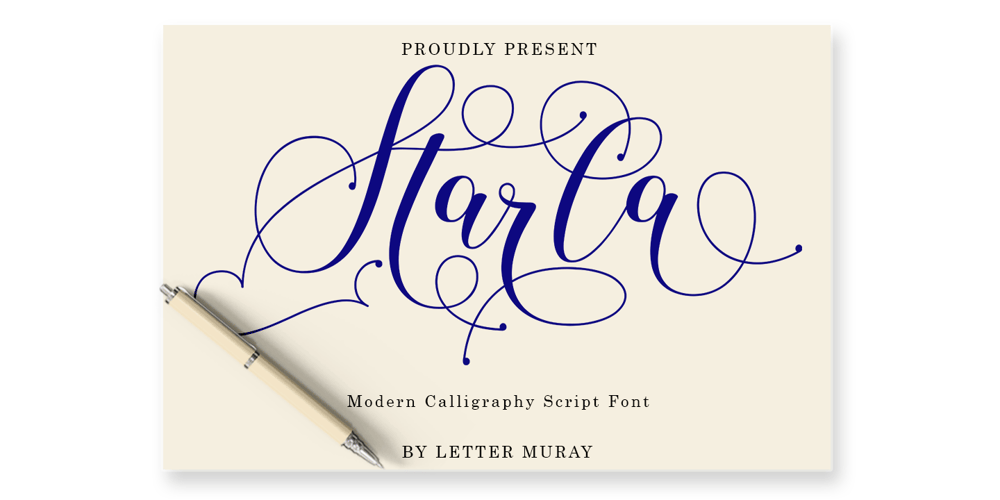
Starla
Starla font
Starla Font Family was designed by Muji Bullah and published by Letter Muray. Starla contains 1 styles and family package options. Starla is a Clean and modern calligraphy font with many alternative styles. Very recomended to open in software design like a Adobe photoshop / illustrator, coreldraw, and more..This font is perfect for various projects such as invitations, product packaging, product design, labels, logos & branding or whatever.